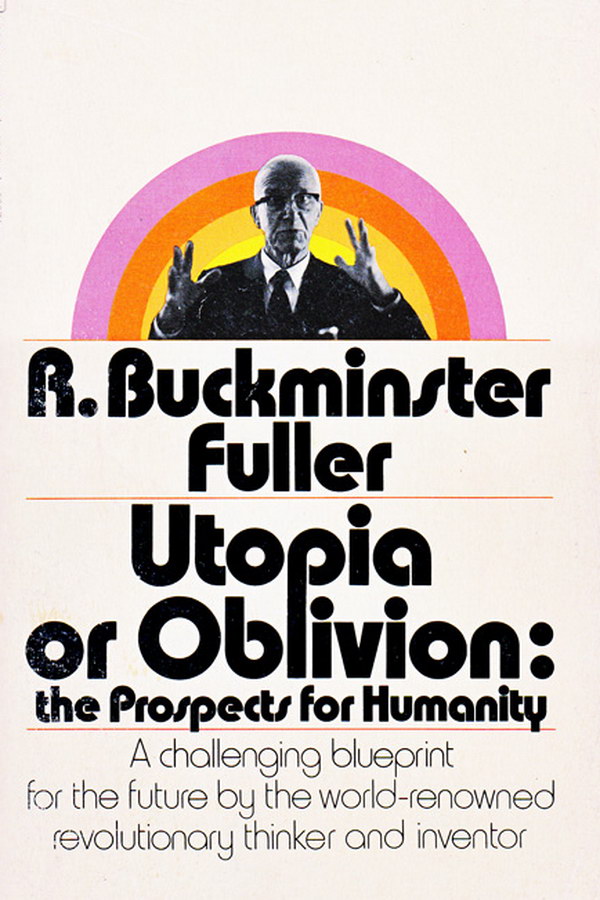
Utopia Or Oblivion Font
ArtsUtopia or Oblivion: The Prospects for Humanity is a book written by Buckminster Fuller, a renowned inventor, architect, and futurist. The book explores the potential future of humanity and the choices we face as a species.
The author's name and the book's title are very similar to a font called ITC Bauhaus. The typeface was designed by Edward Benguiat and Victor Caruso inspired by Herbert Bayer's 1925 prototype of the Dessau Bauhaus.The subtitles are written in Harry Thin.